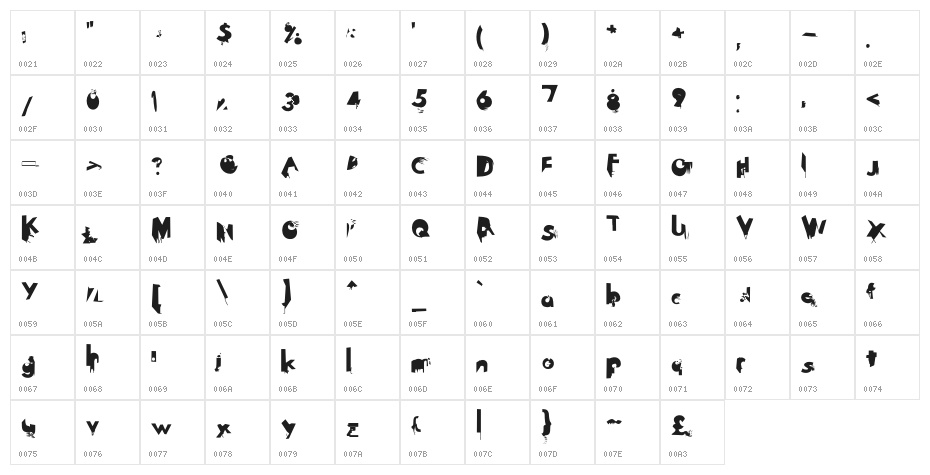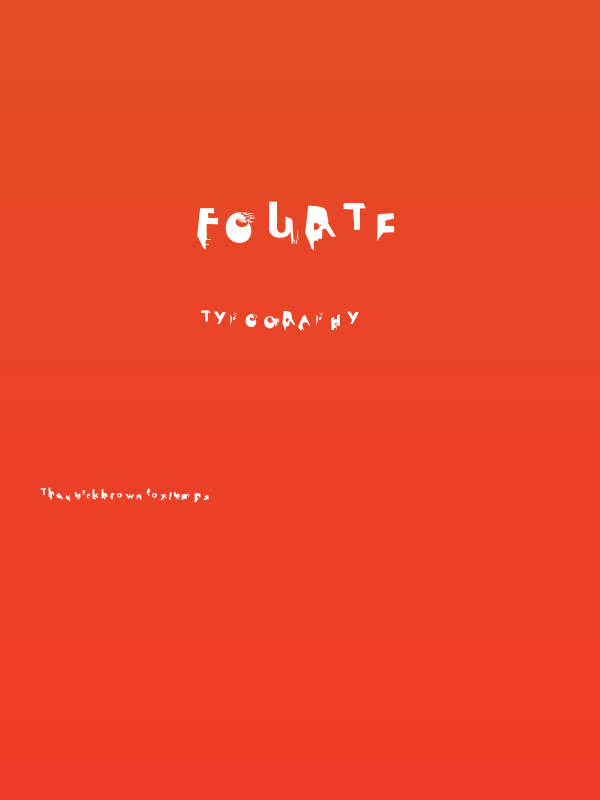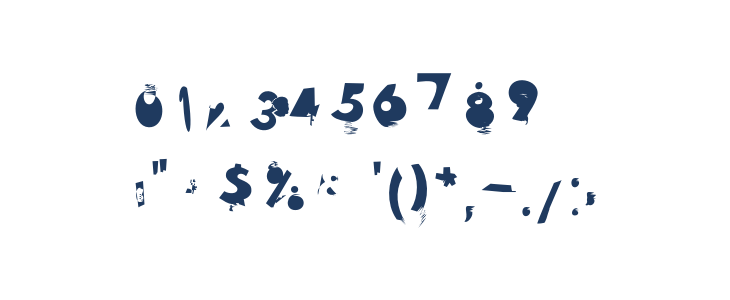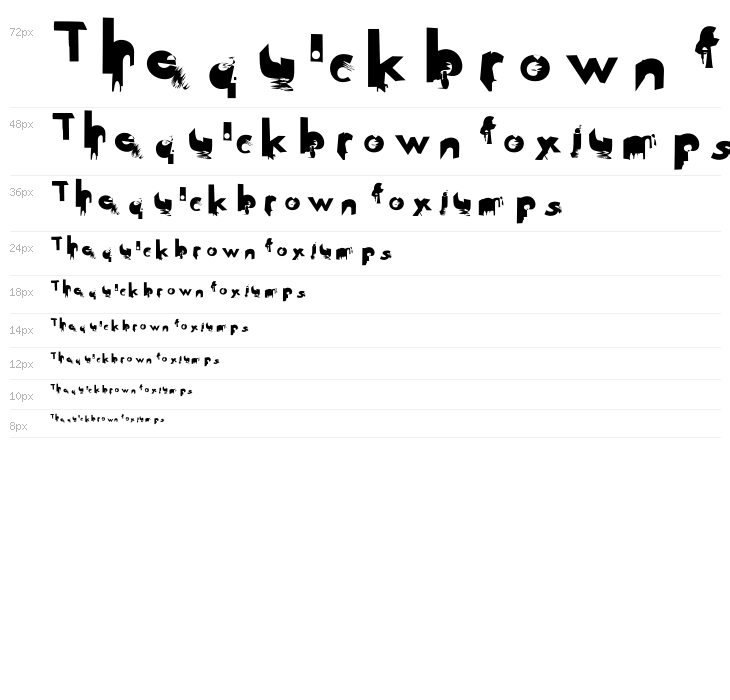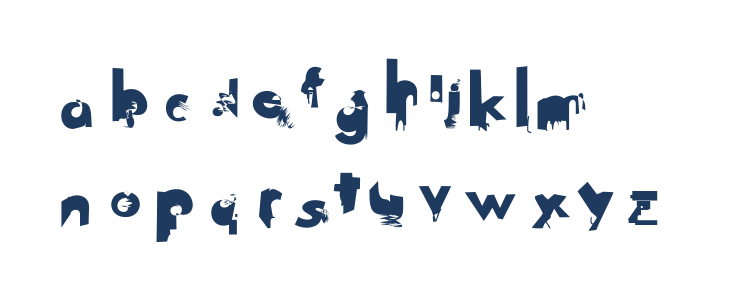
FourTe Font
FourTe Description
This font features a highly decorative and abstract style, characterized by irregular shapes and fragmented edges. Each character appears as if it has been distressed or eroded, giving it a chaotic and dynamic appearance. The uppercase and lowercase letters maintain a consistent level of distortion, creating a cohesive yet unpredictable look. The numbers and special characters follow the same design principles, ensuring uniformity across the entire typeface. This font's unique style makes it stand out, offering a bold statement in any design project.
| Proposed Projects | Ideal for edgy graphic design projects, album covers, posters, and branding that requires a bold, unconventional look. |